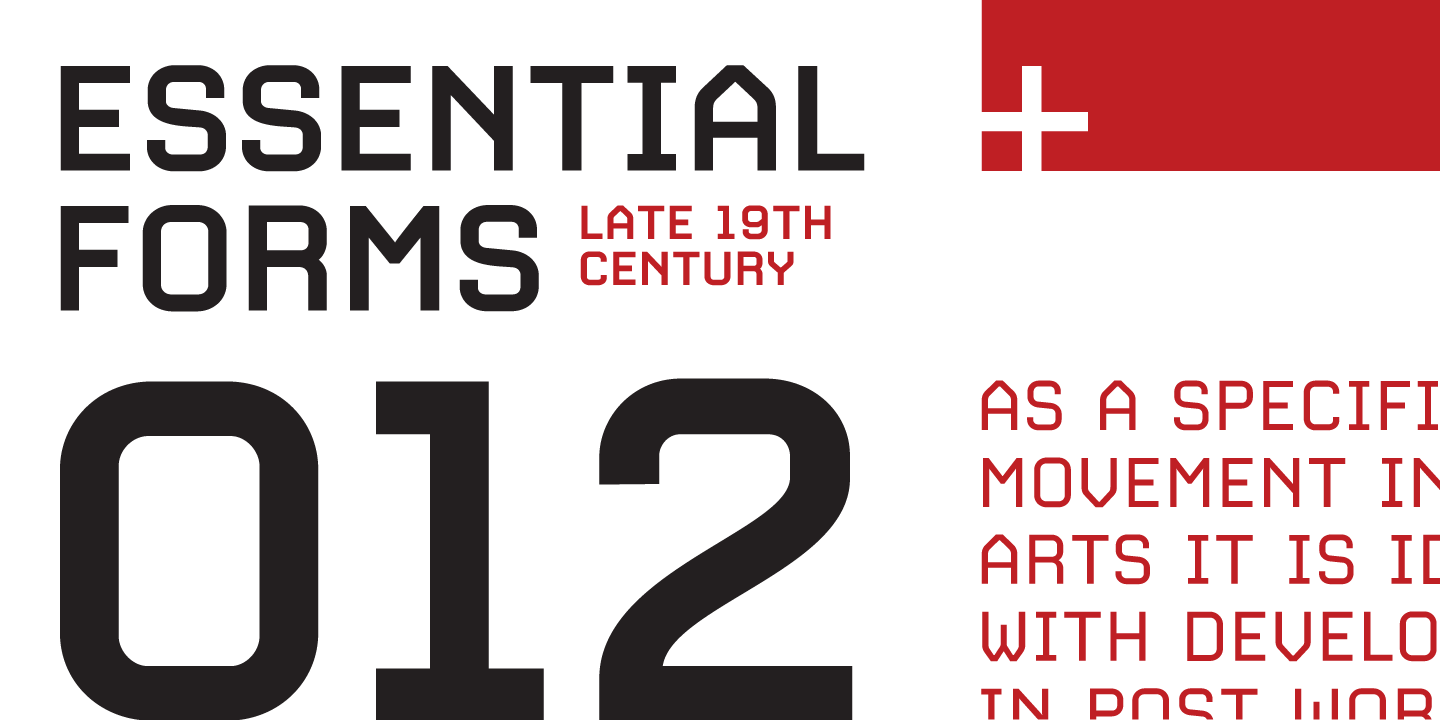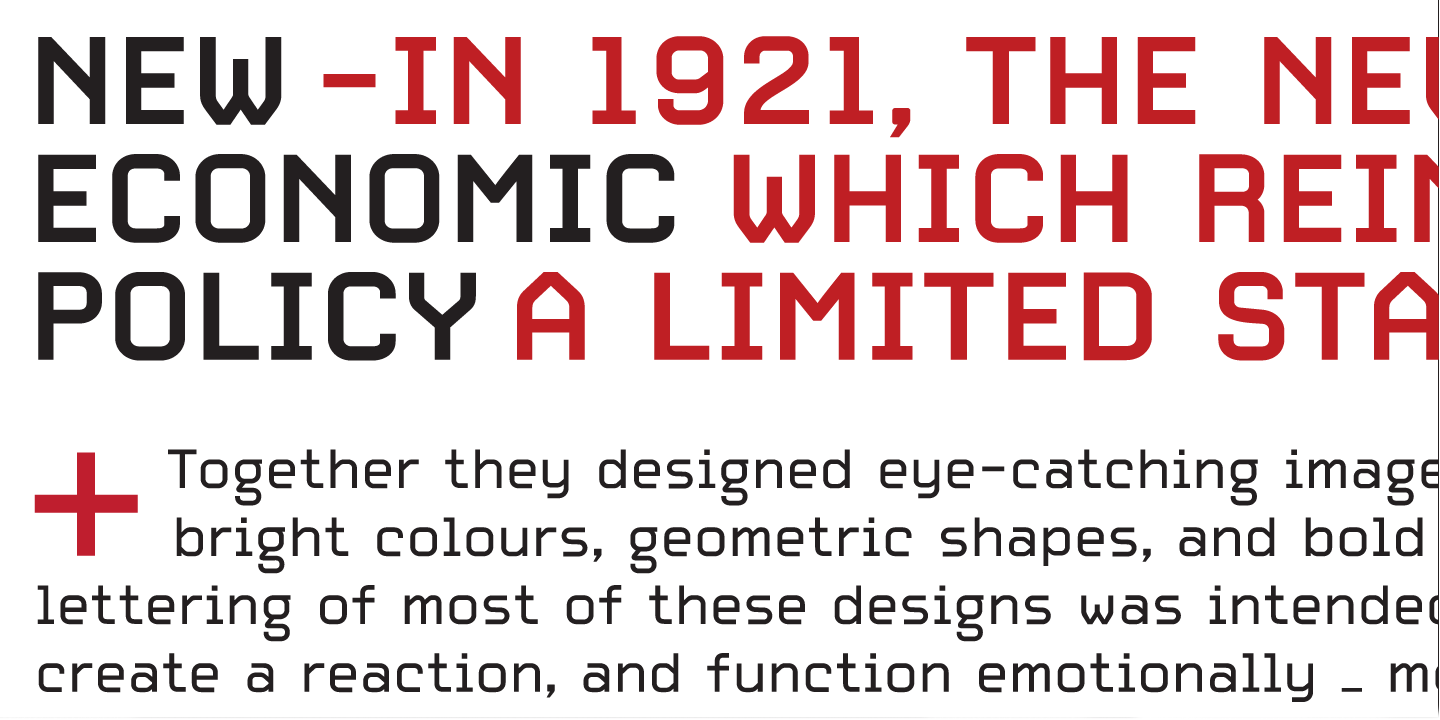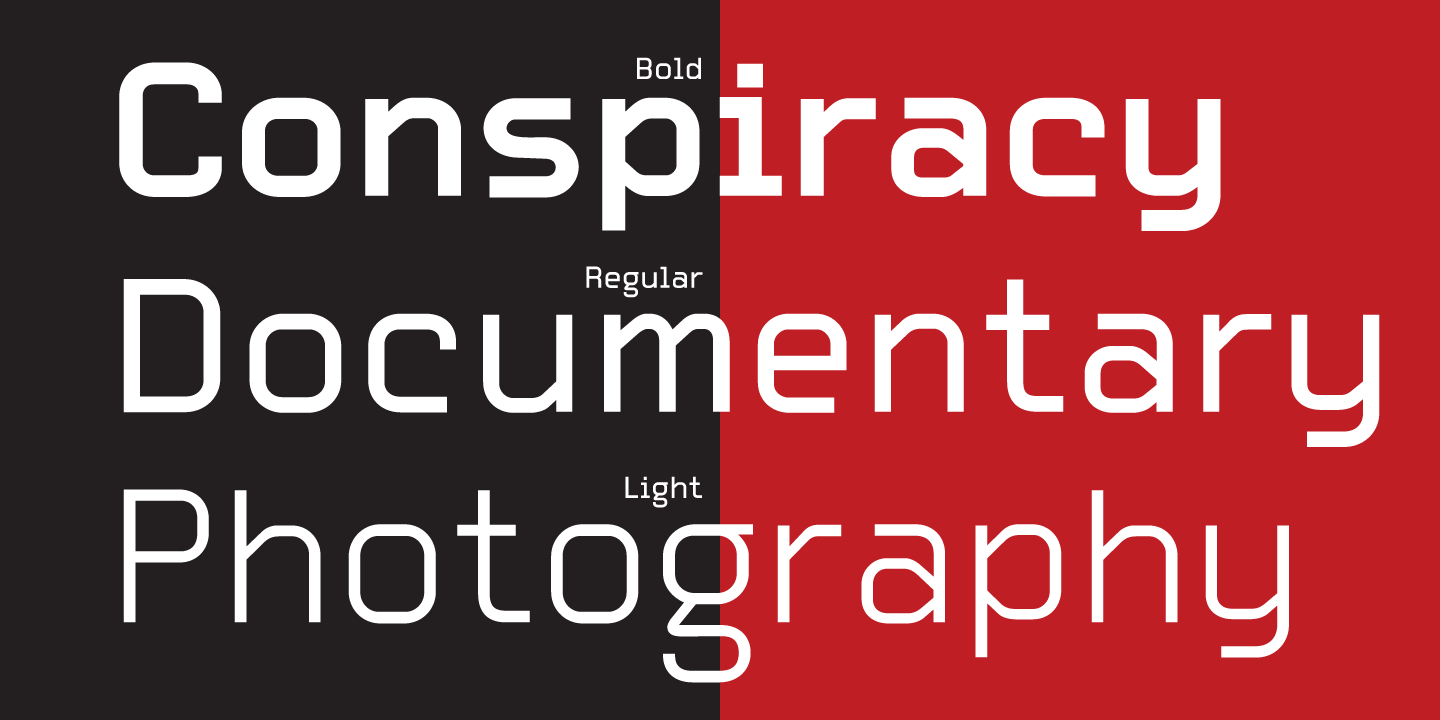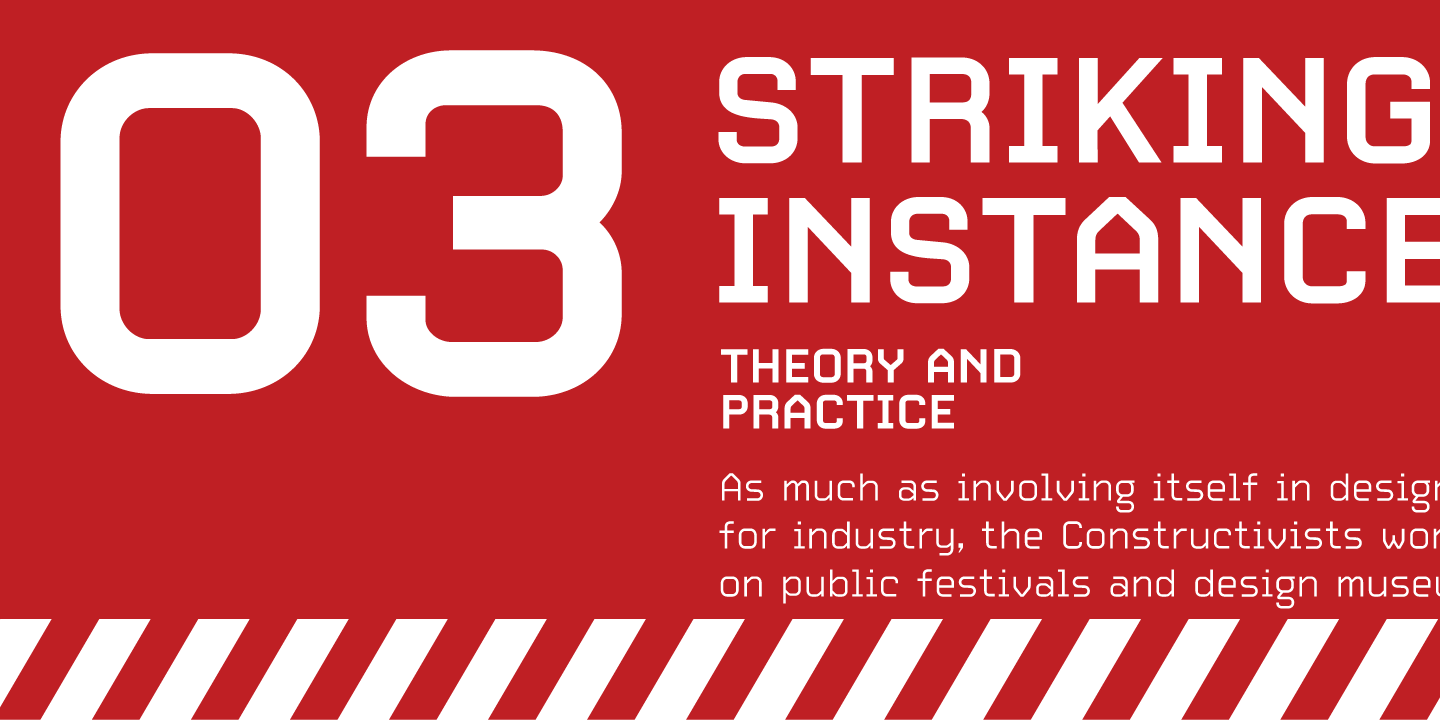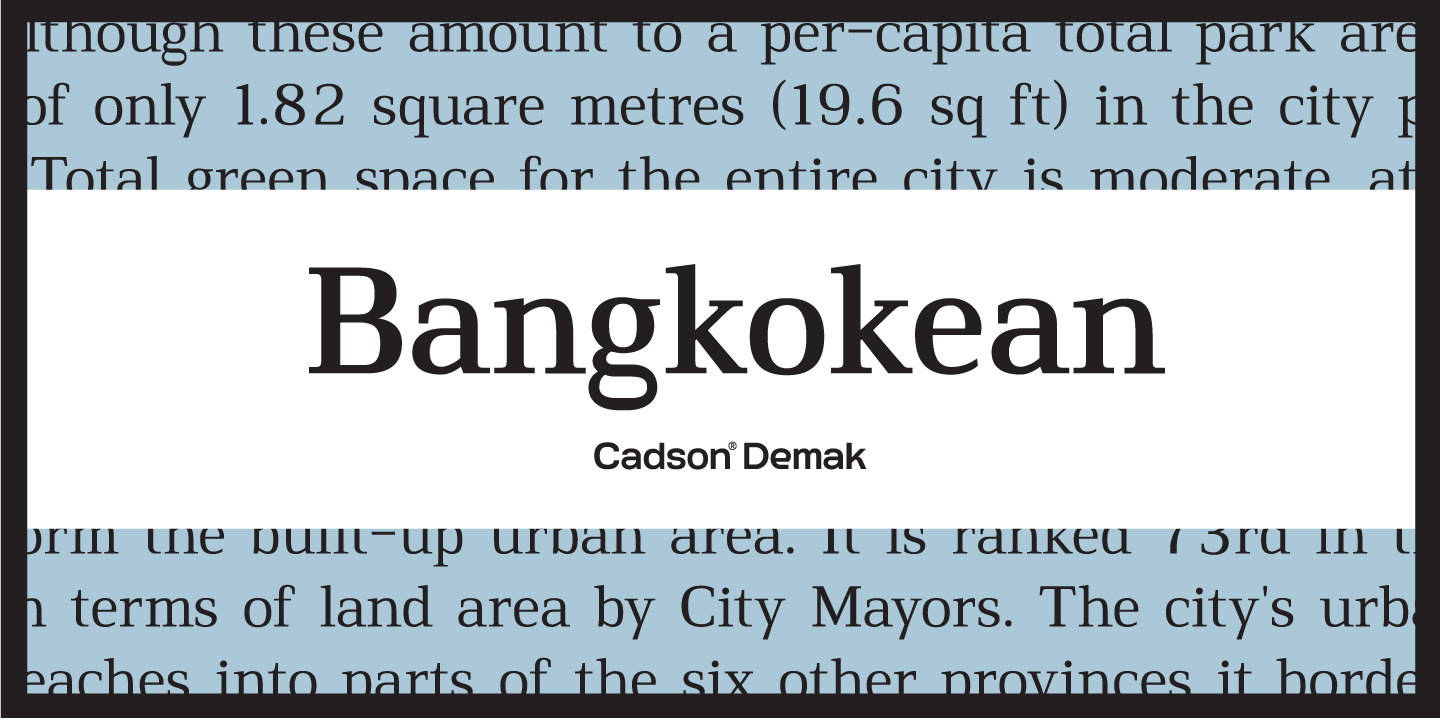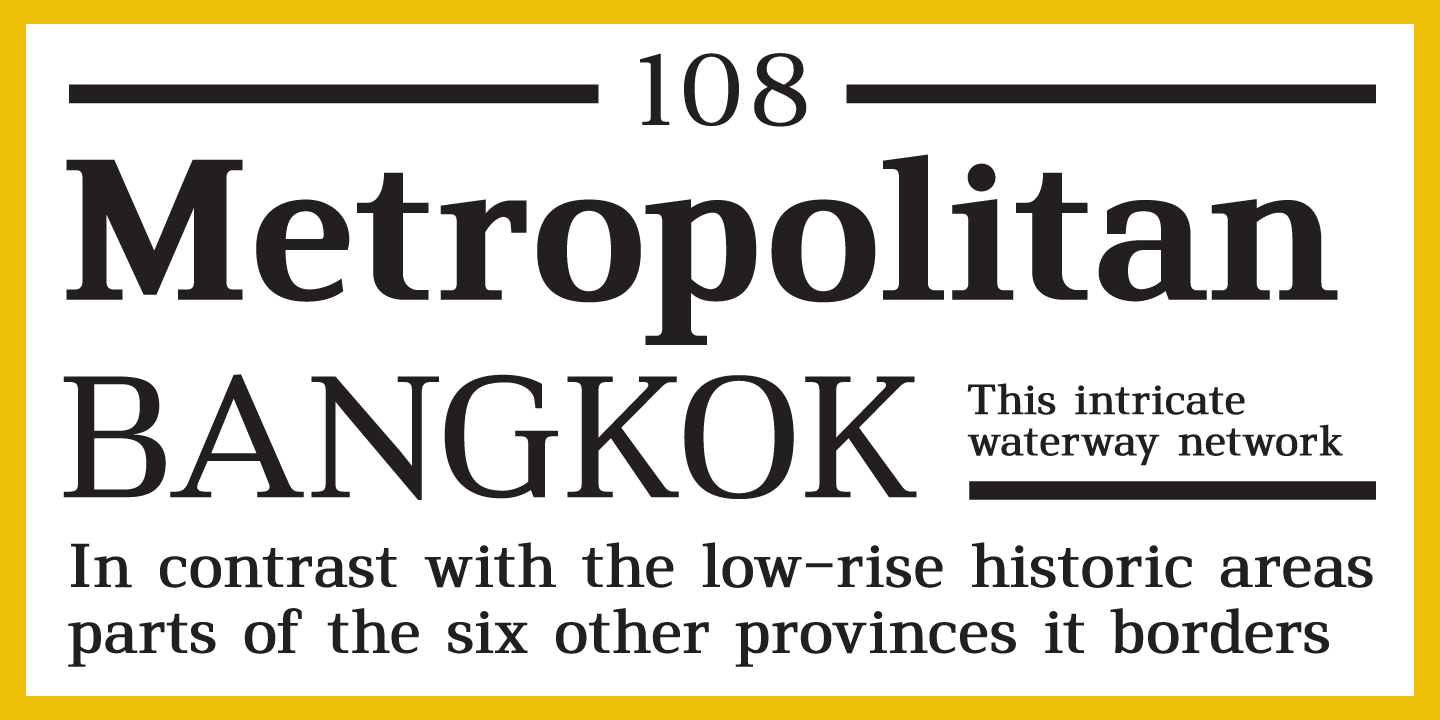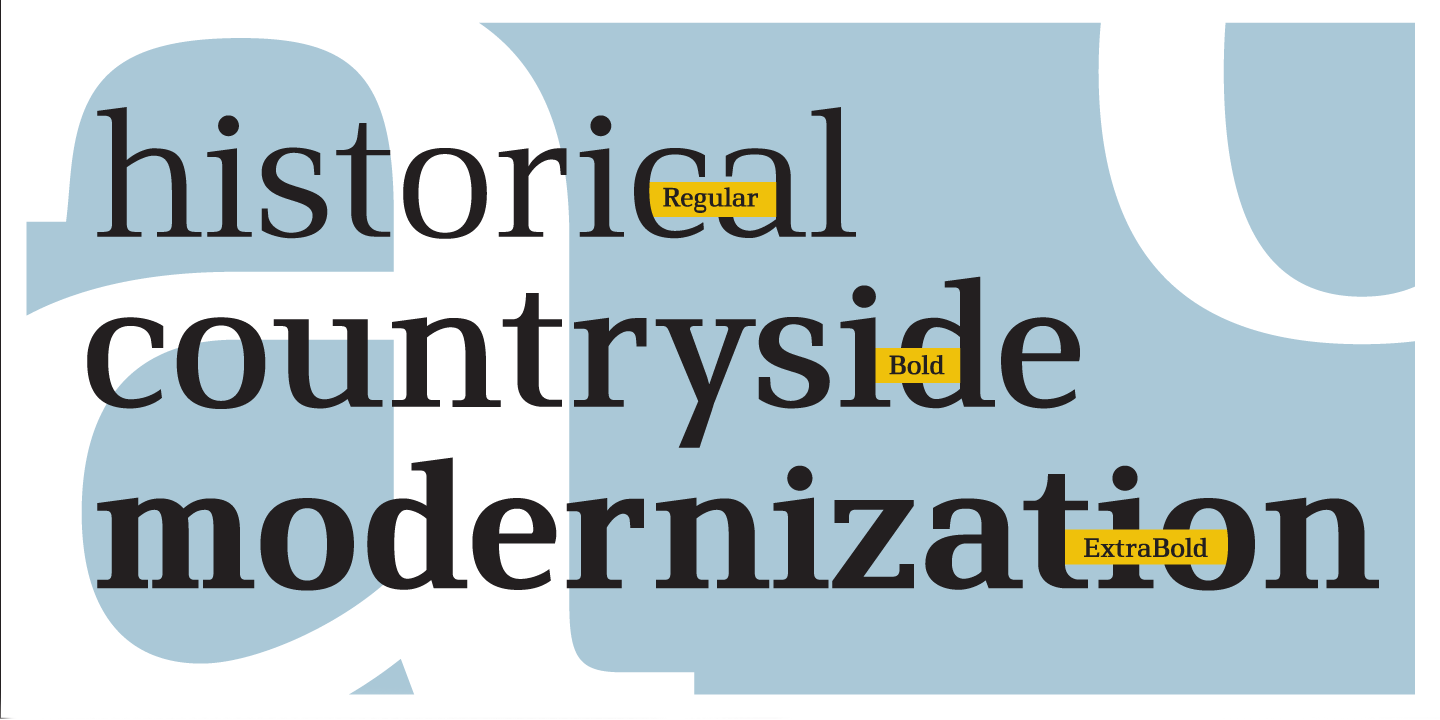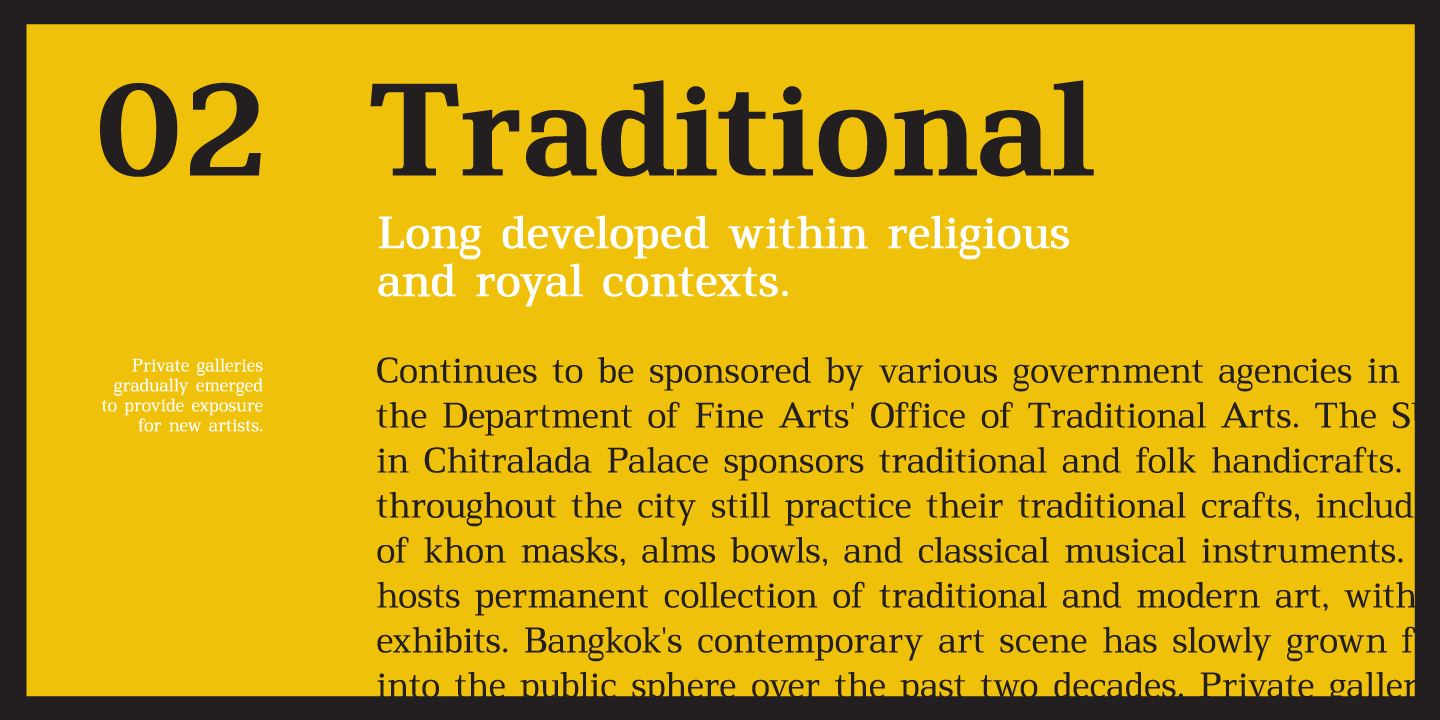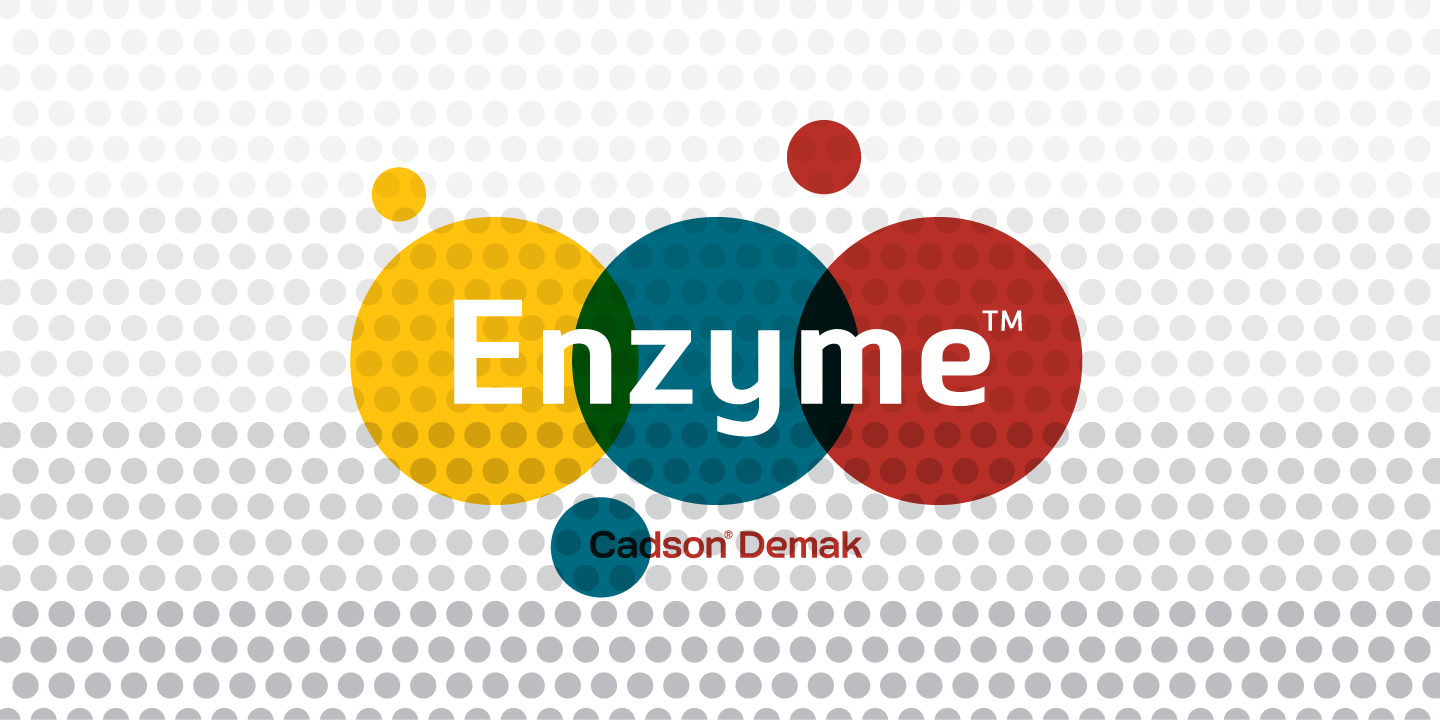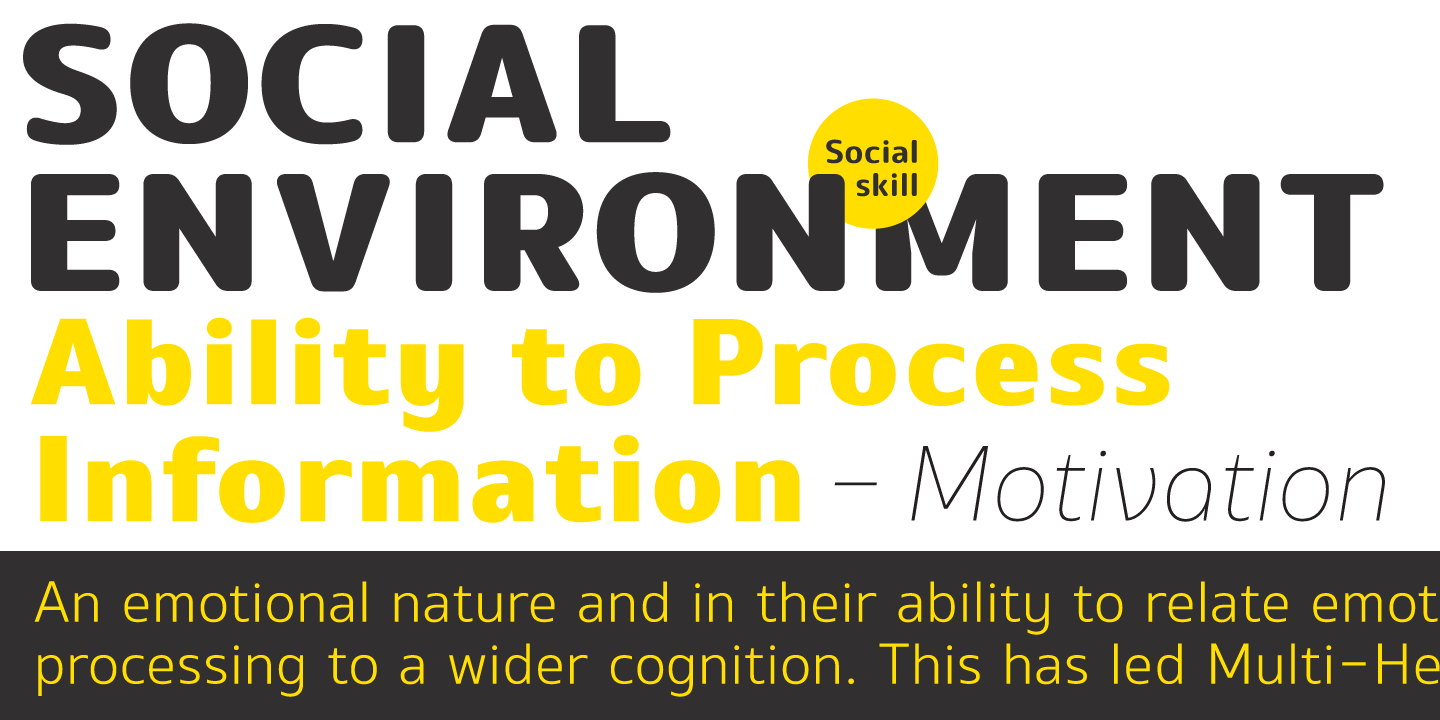
Anuthin Wongsunkakon
Graphic designer and type designer based in Bangkok. Buzzed in type design arena under guardianship of legendary Tony Dispigna in New York. His fonts have been used in magazines, book covers, consumer products, record covers, as well as identity for a worldwide company.
He also was a writer and contributor for Thai magazines such as Image, DNA, Freeze and art4d. His typographic work has been recognized by the Type Directors Club, New York. He also teaches graphic design at Chulalongkorn, Bangkok University, and is a visiting lecturer at Rangsit University.